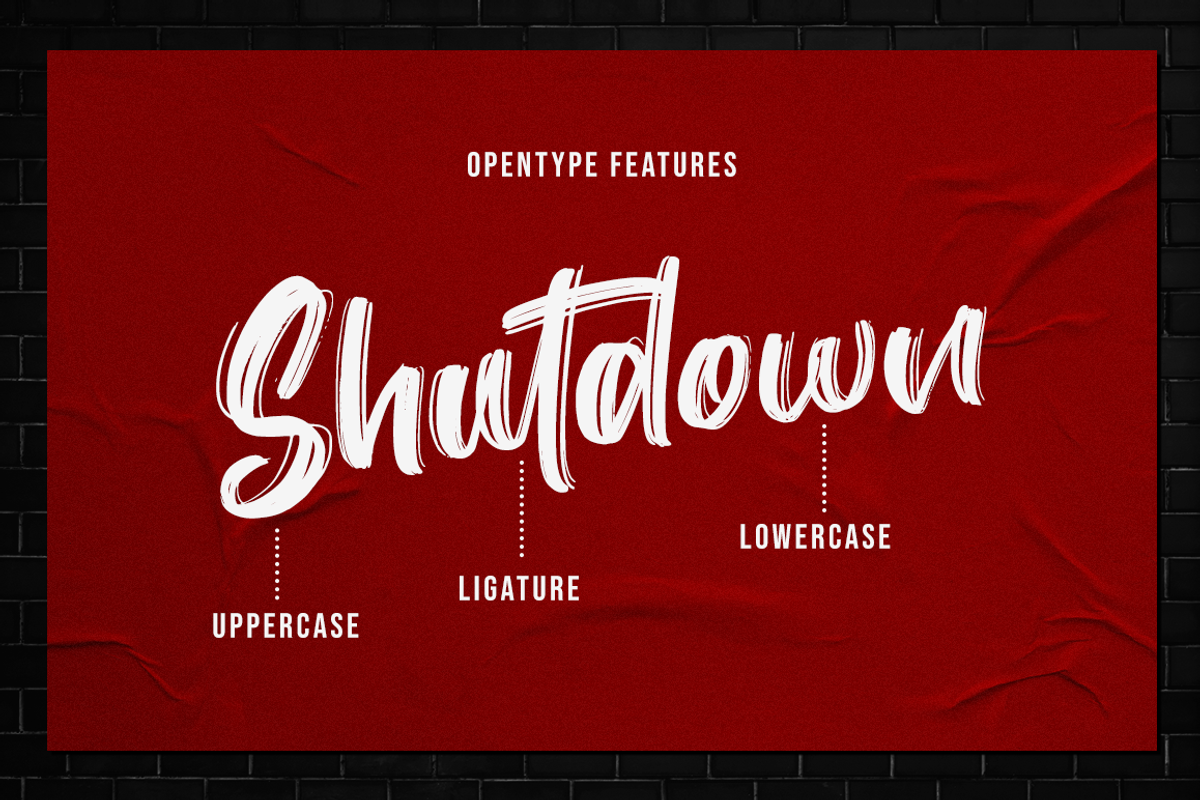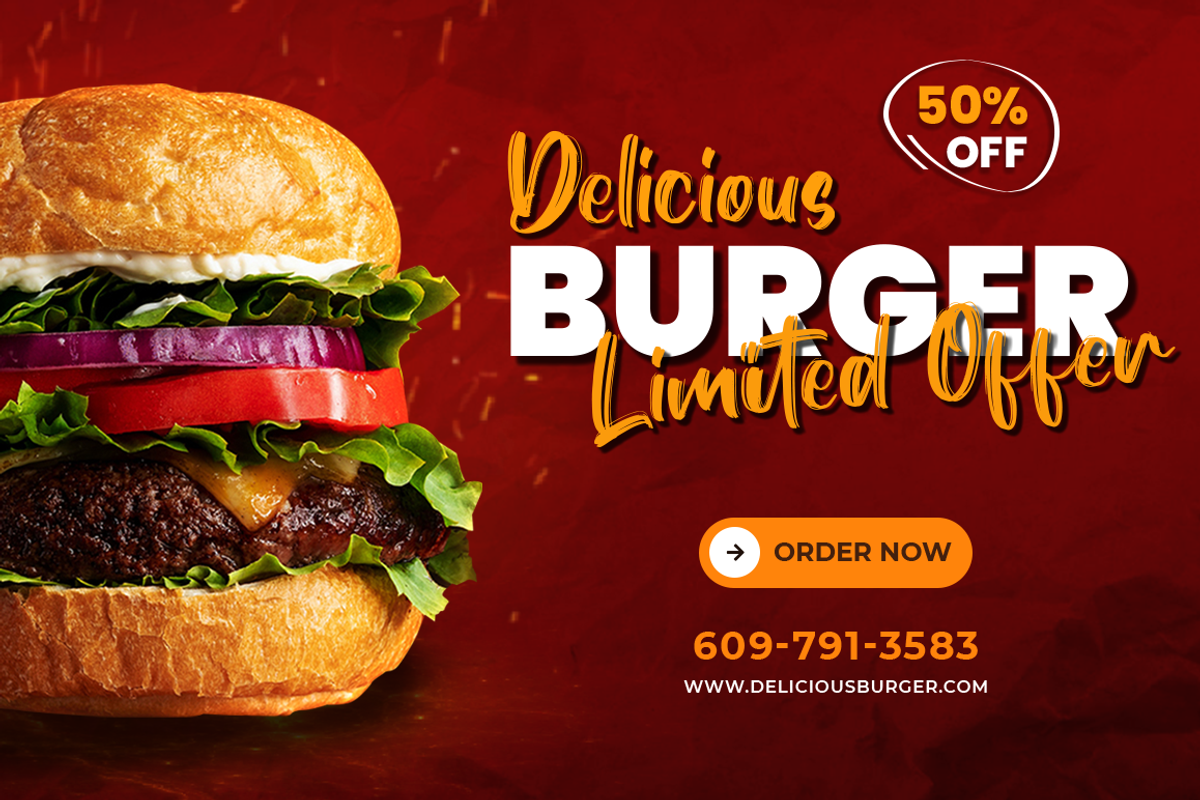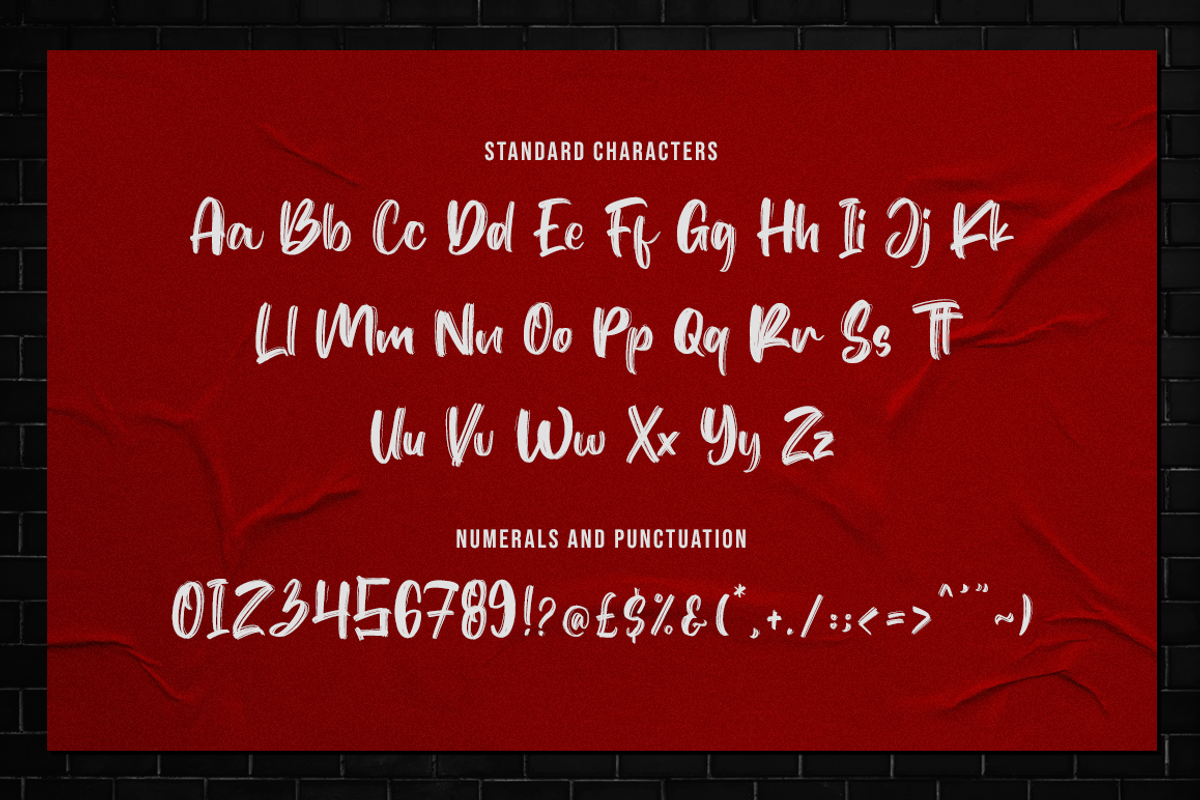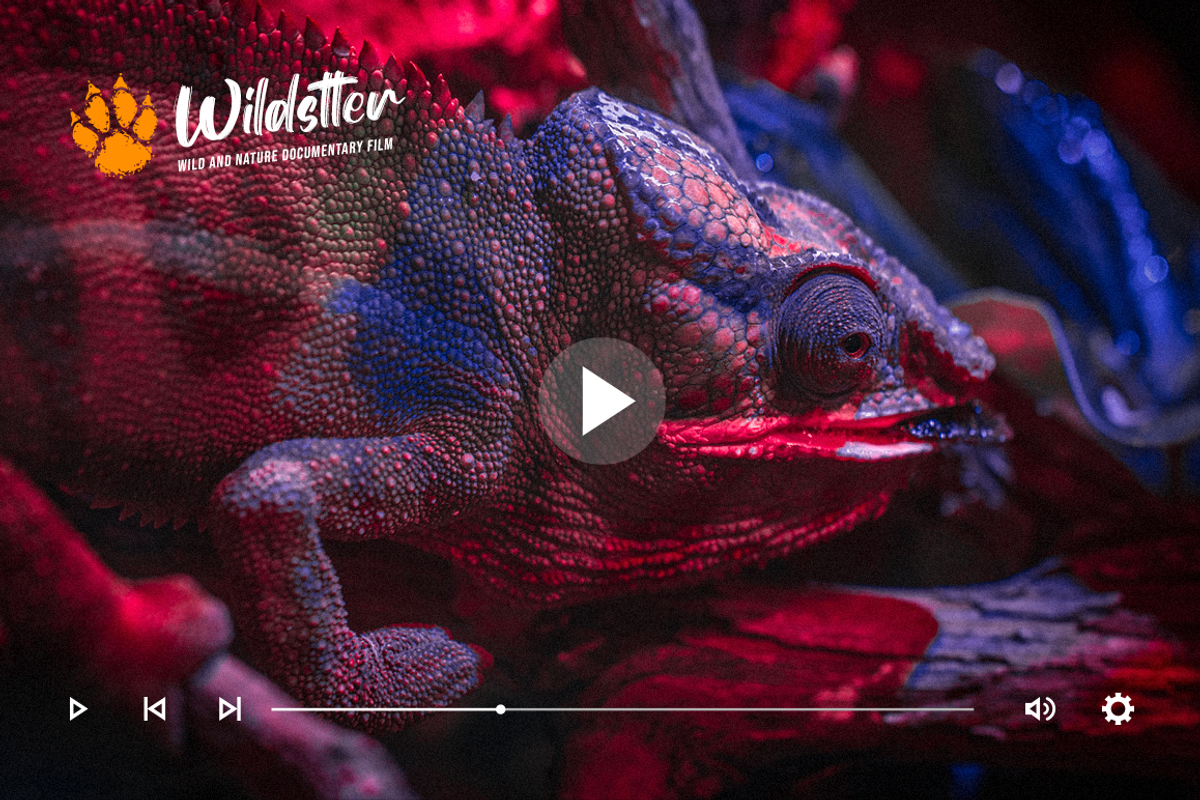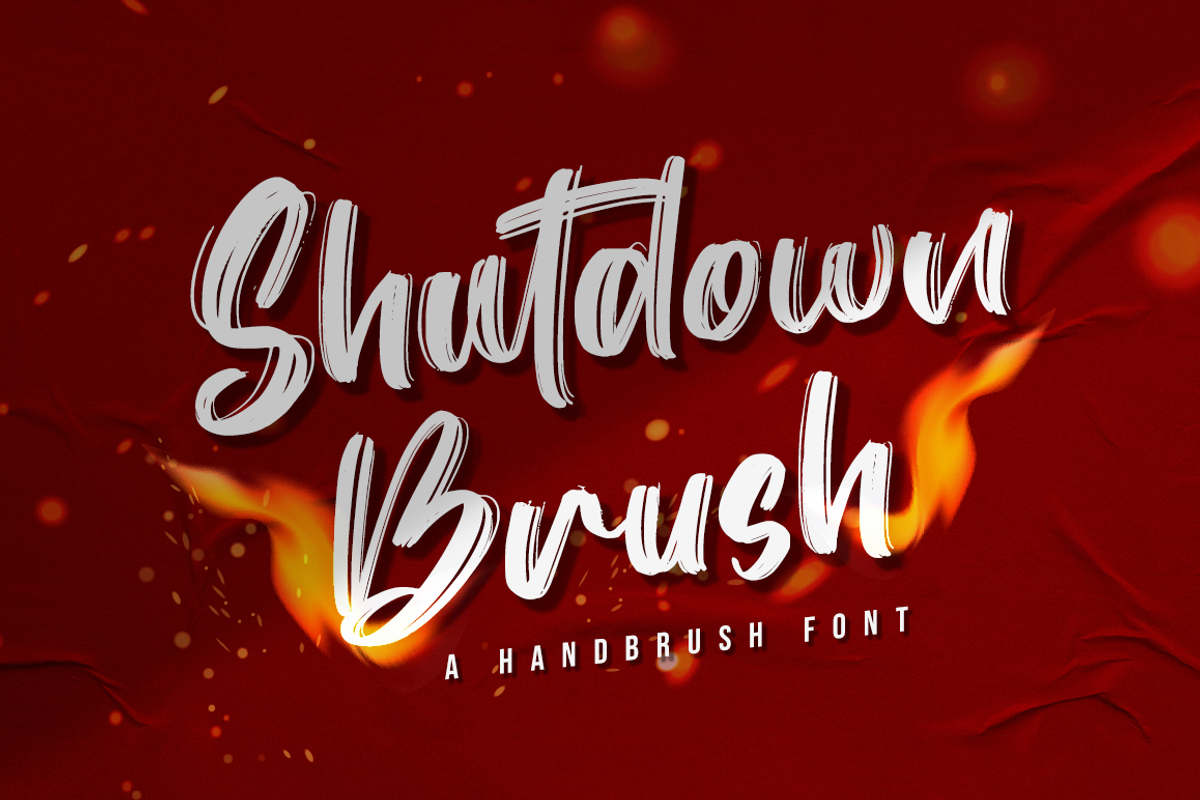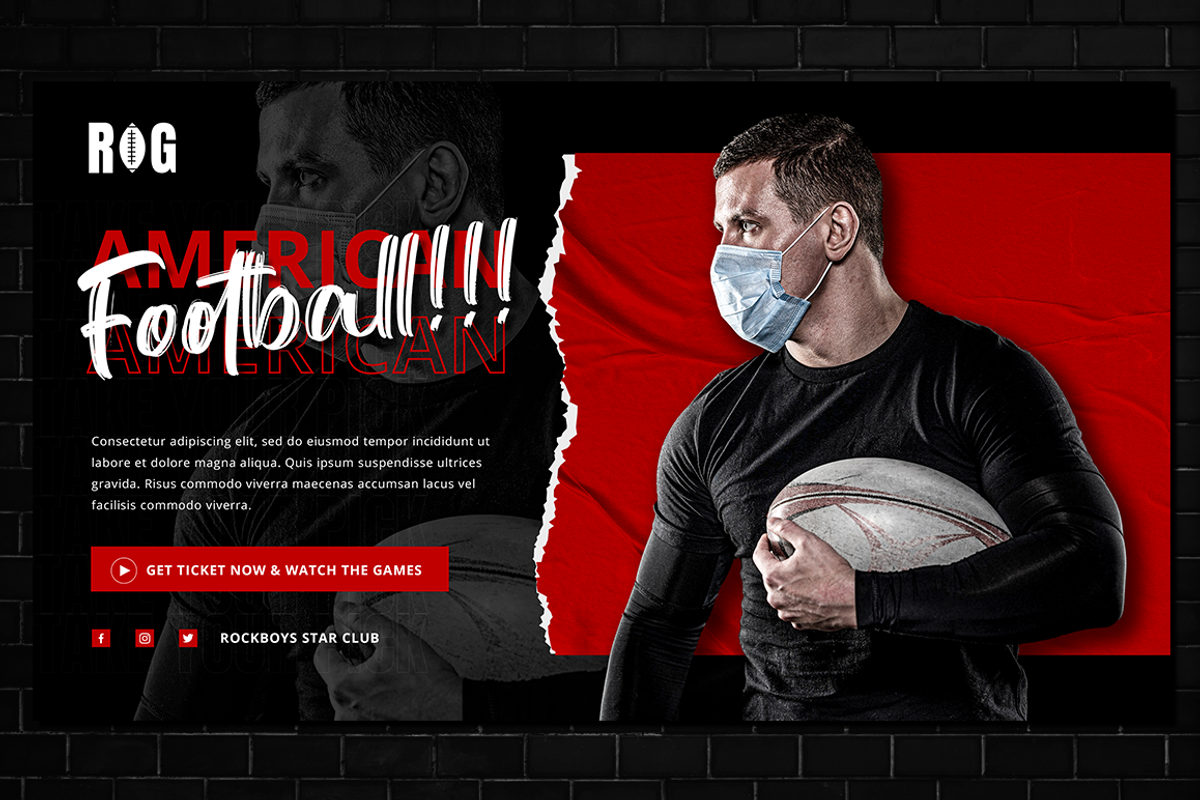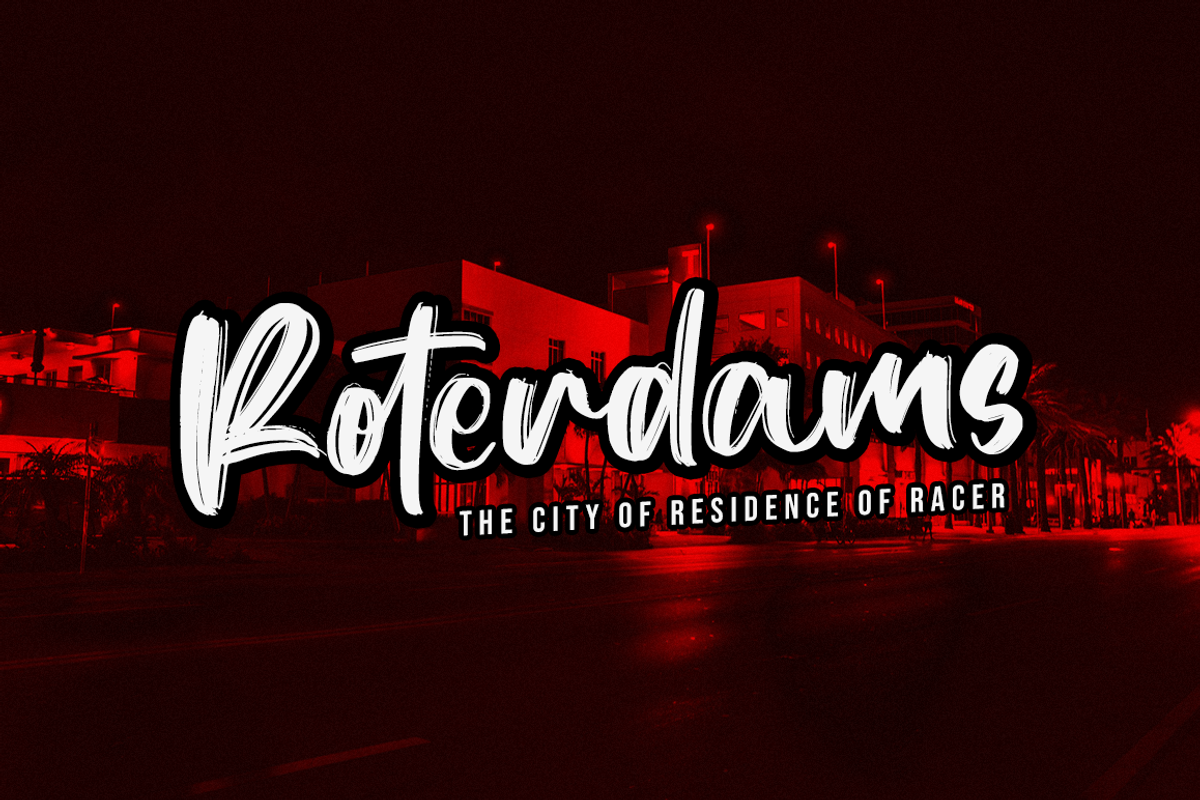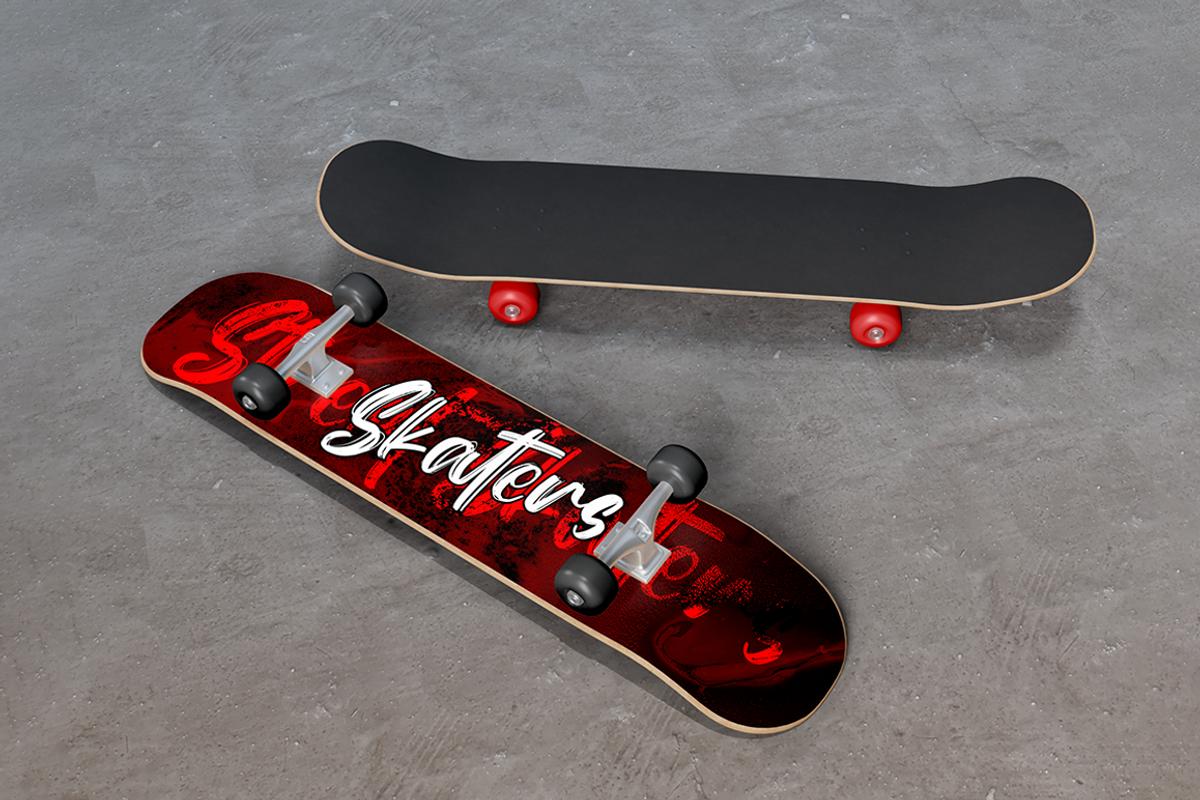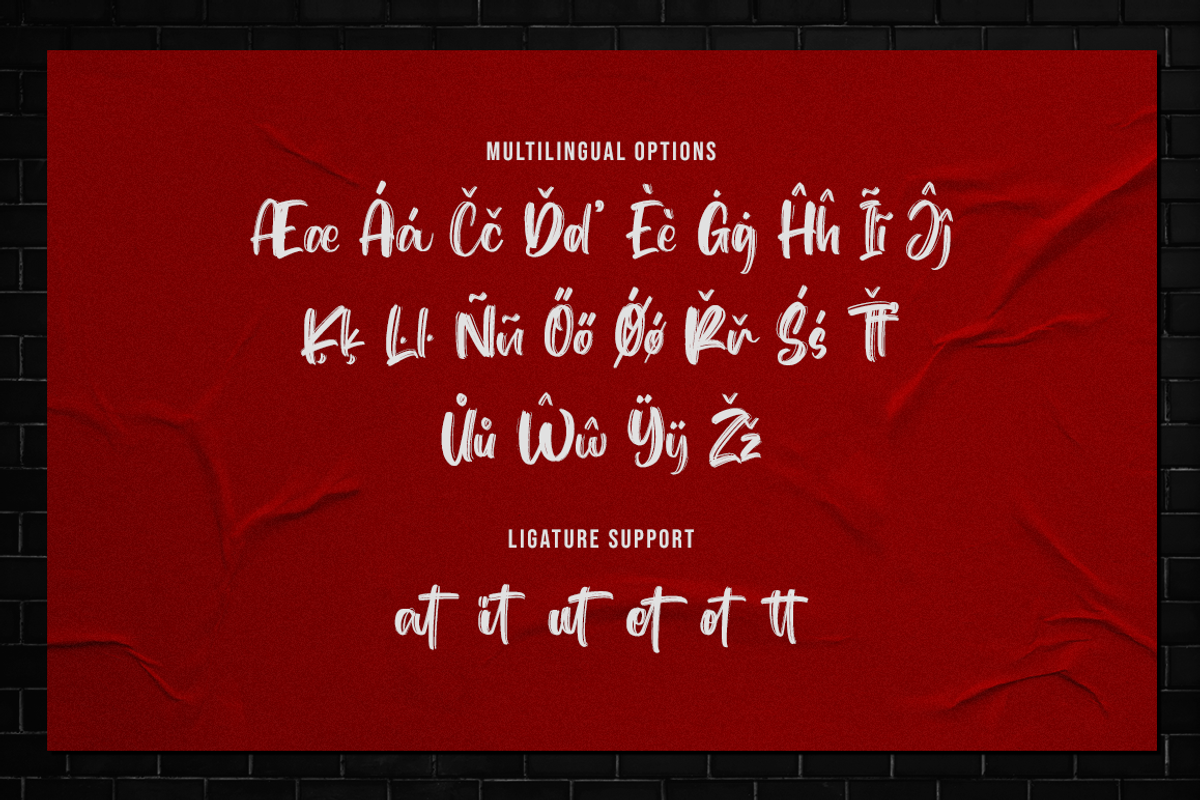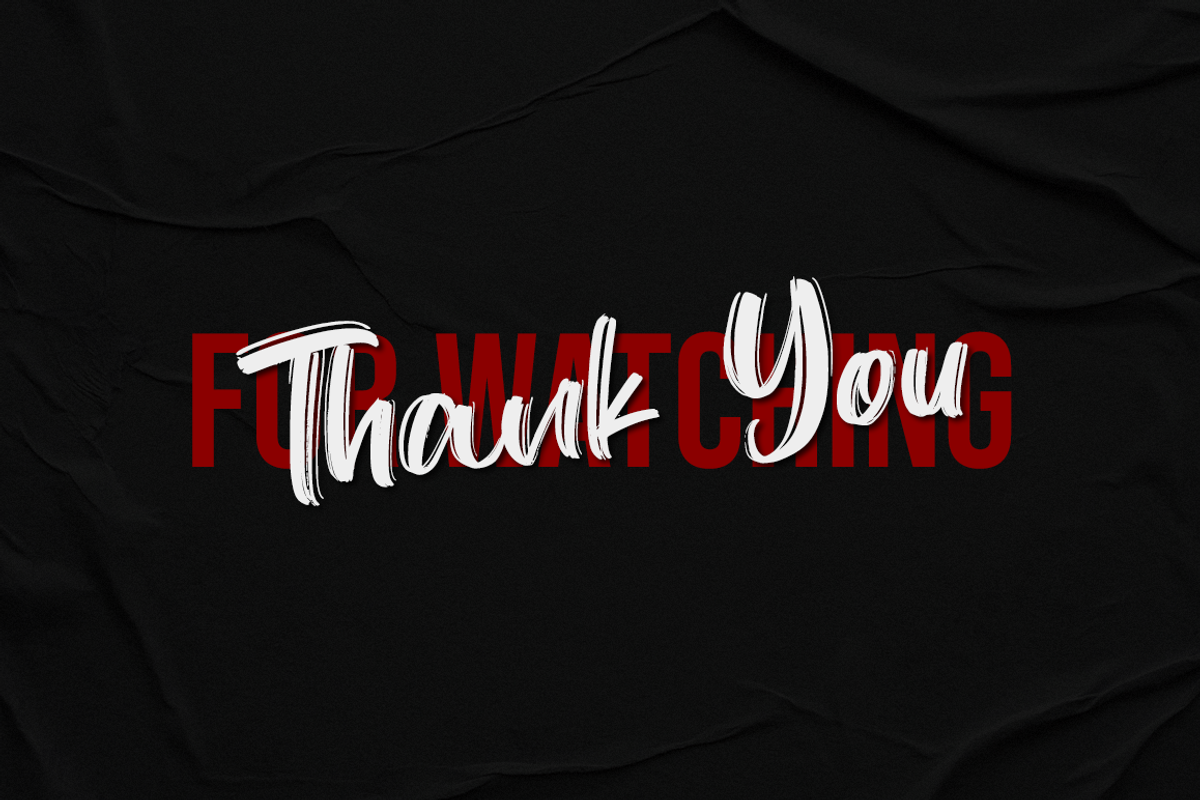
Shutdown Brush
Shutdown Brush is a unique brush font, perfect for use in modern design projects. This font has a slightly aggressive edge, and works well in displays for use in digital media.